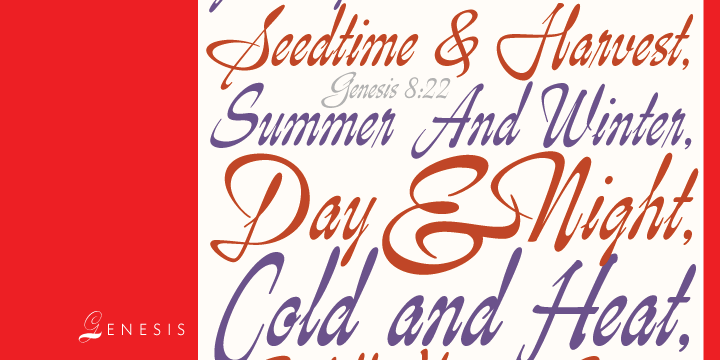
Genesis Pro is a script font published by Canada Type.
Genesis is a digitization and expansion of a Frank Riley metal typeface called Grayda, originally published to much applause by ATF in 1939.
The concept for this disconnected script is quite novel and original among cursives and calligraphic fonts: The minuscules are mostly made with slightly clubbed strokes, which becomes clearly visible in the ascenders and descenders. This alone gives the face a bubbly appearance unlike any other. The formula is completed with two sets of beautiful calligraphic majuscules and a few alternates.